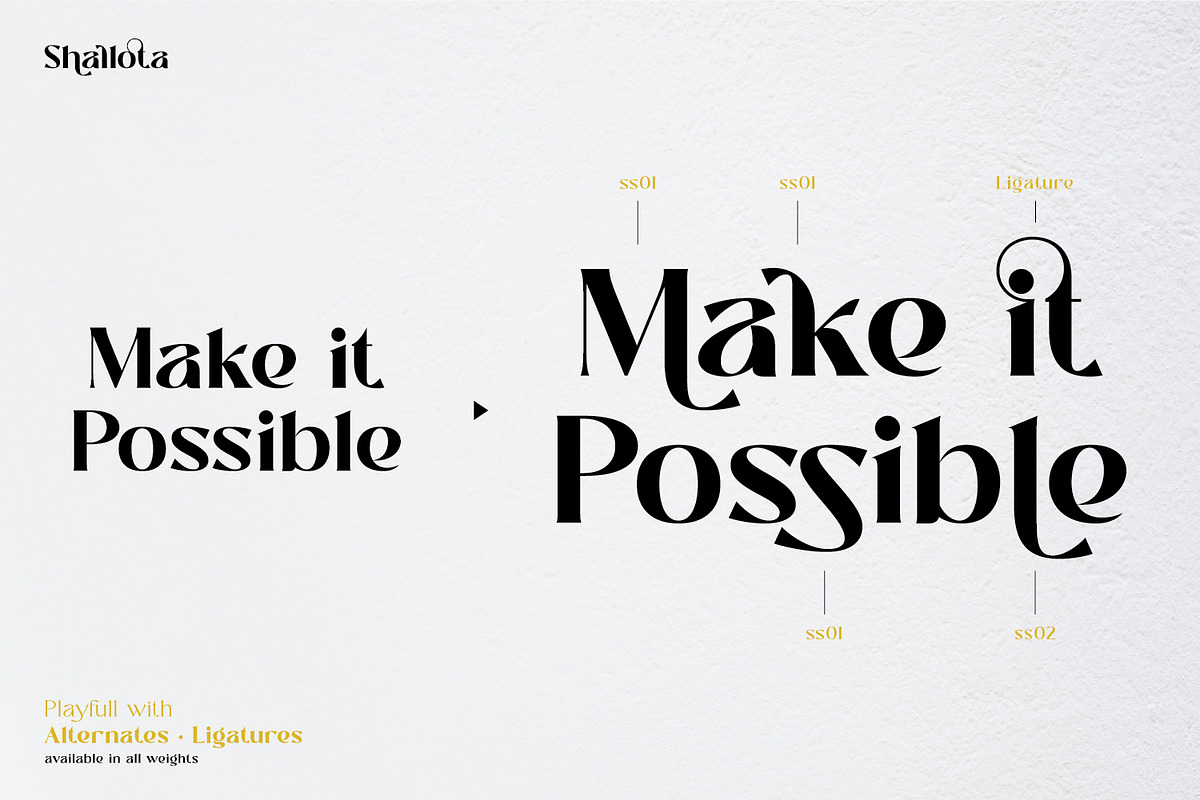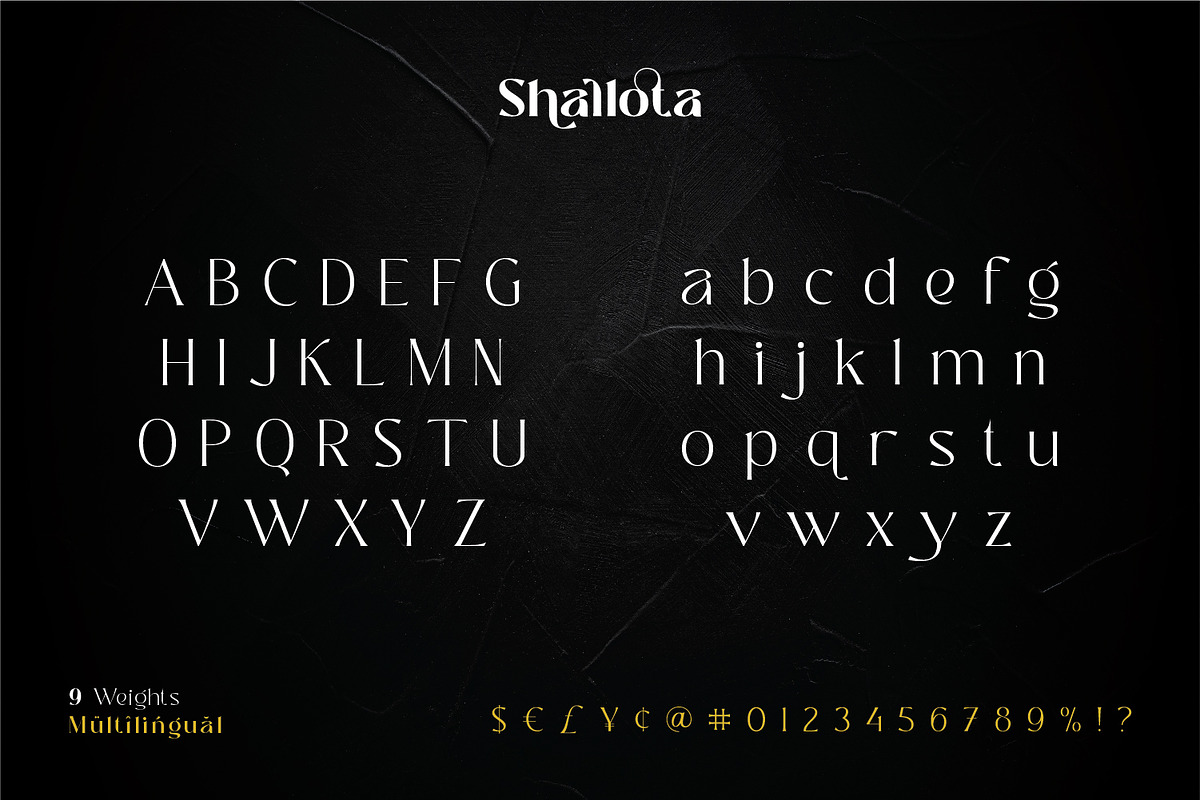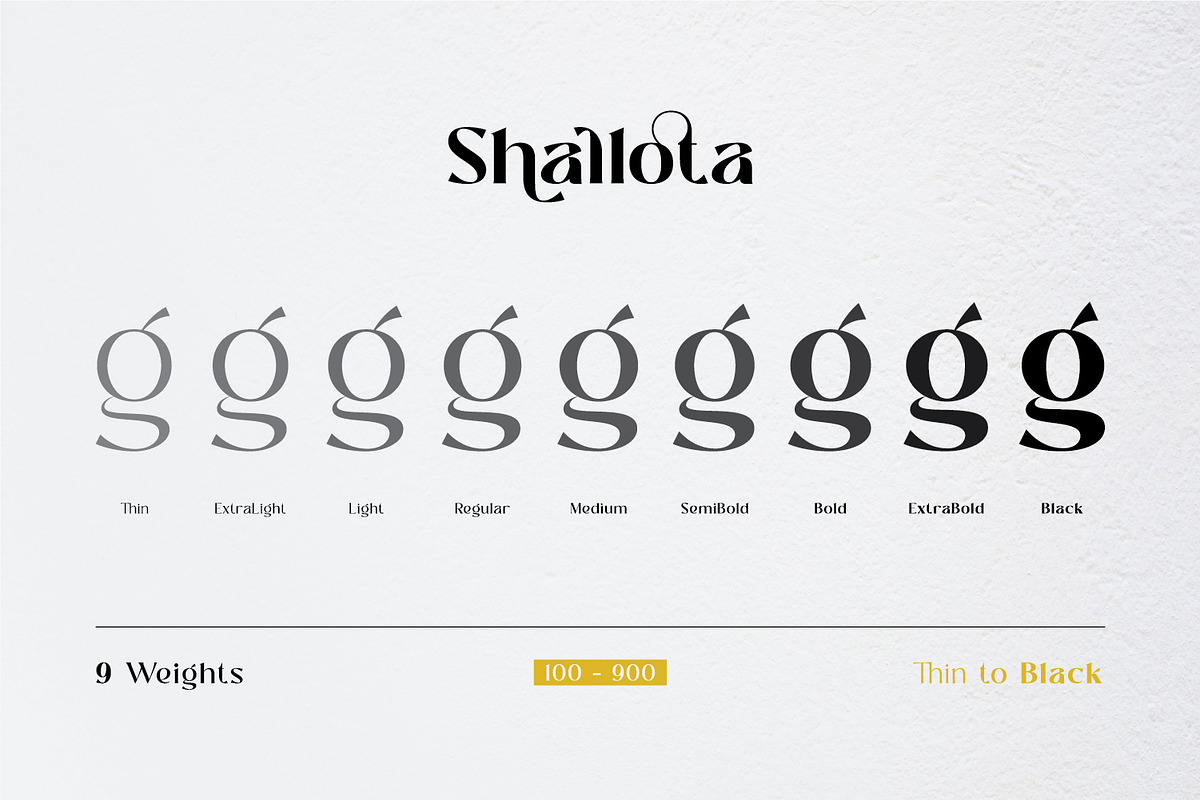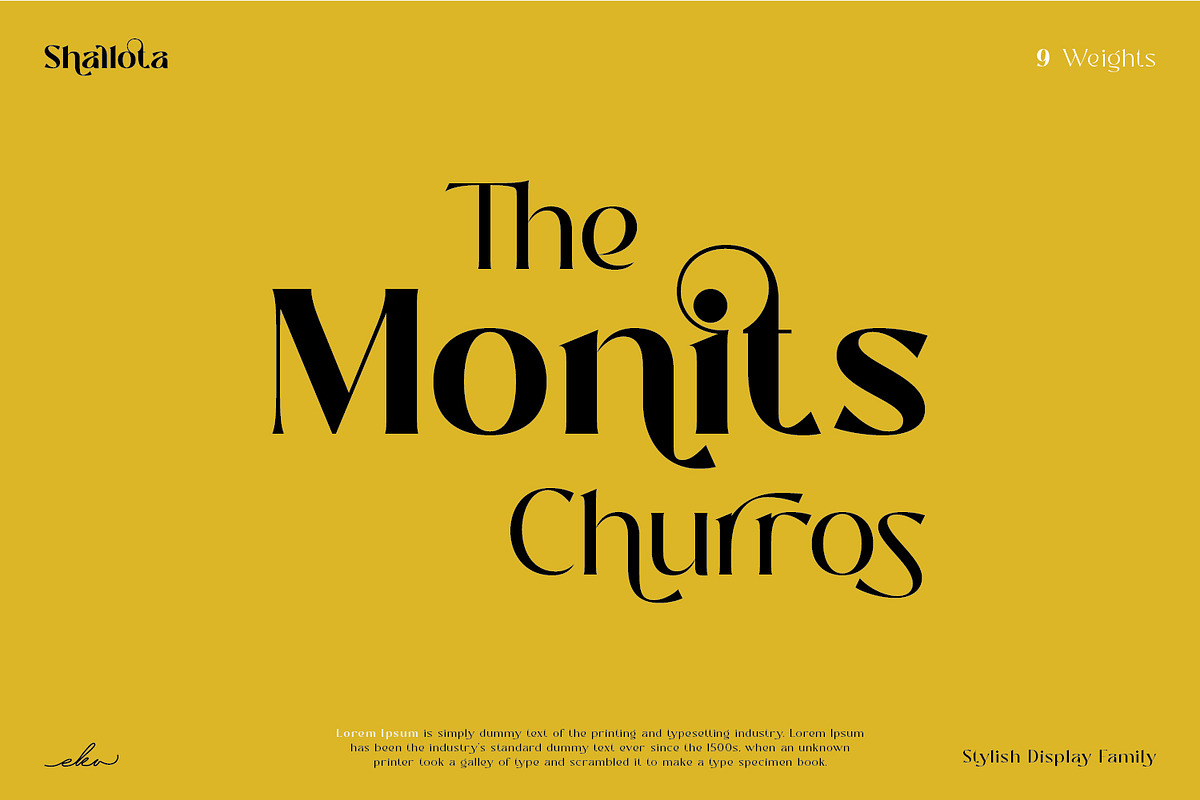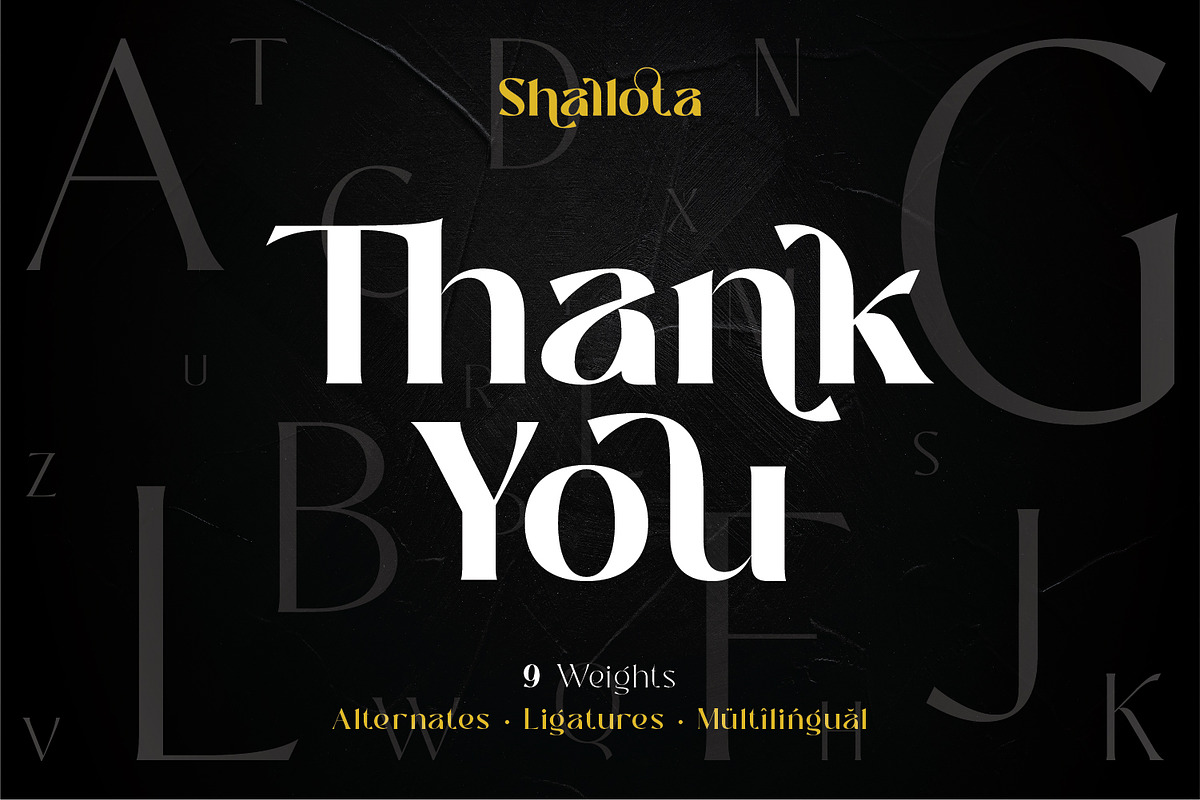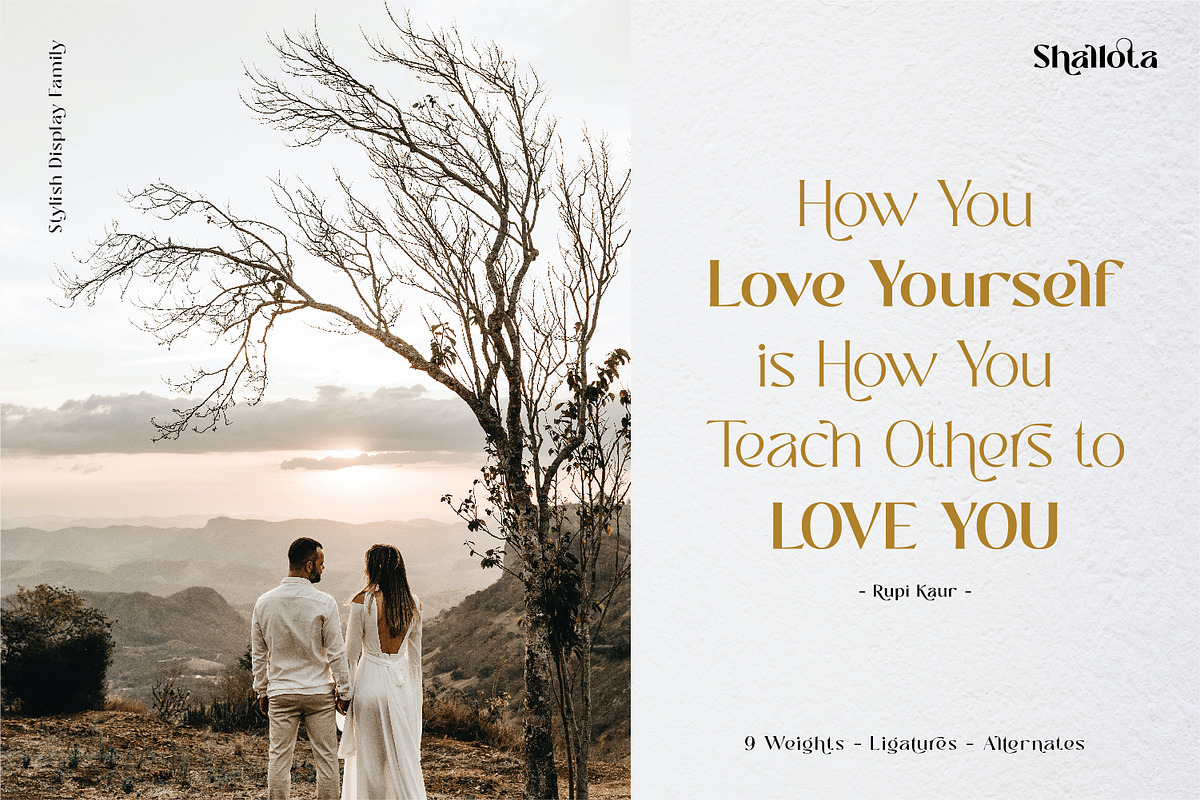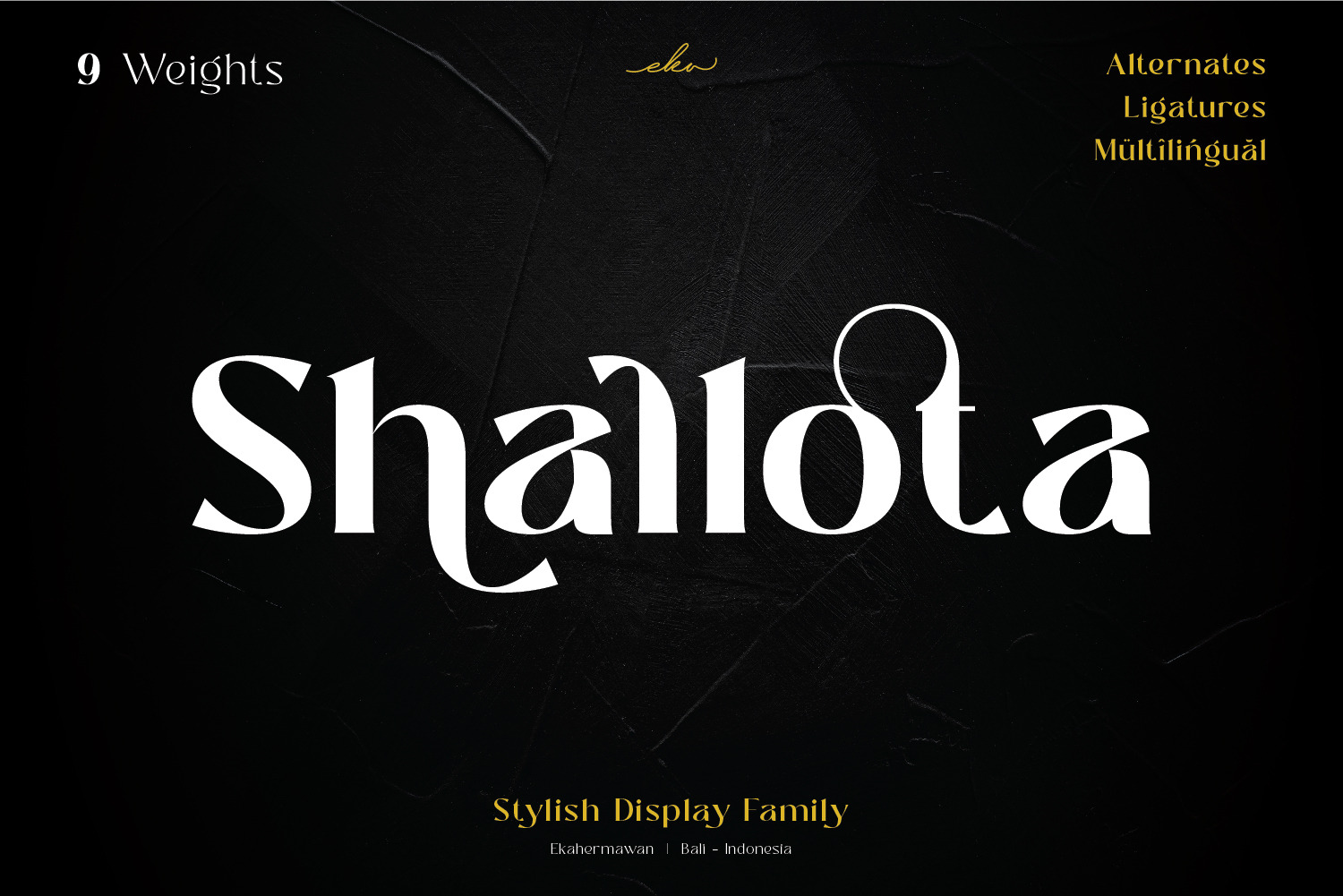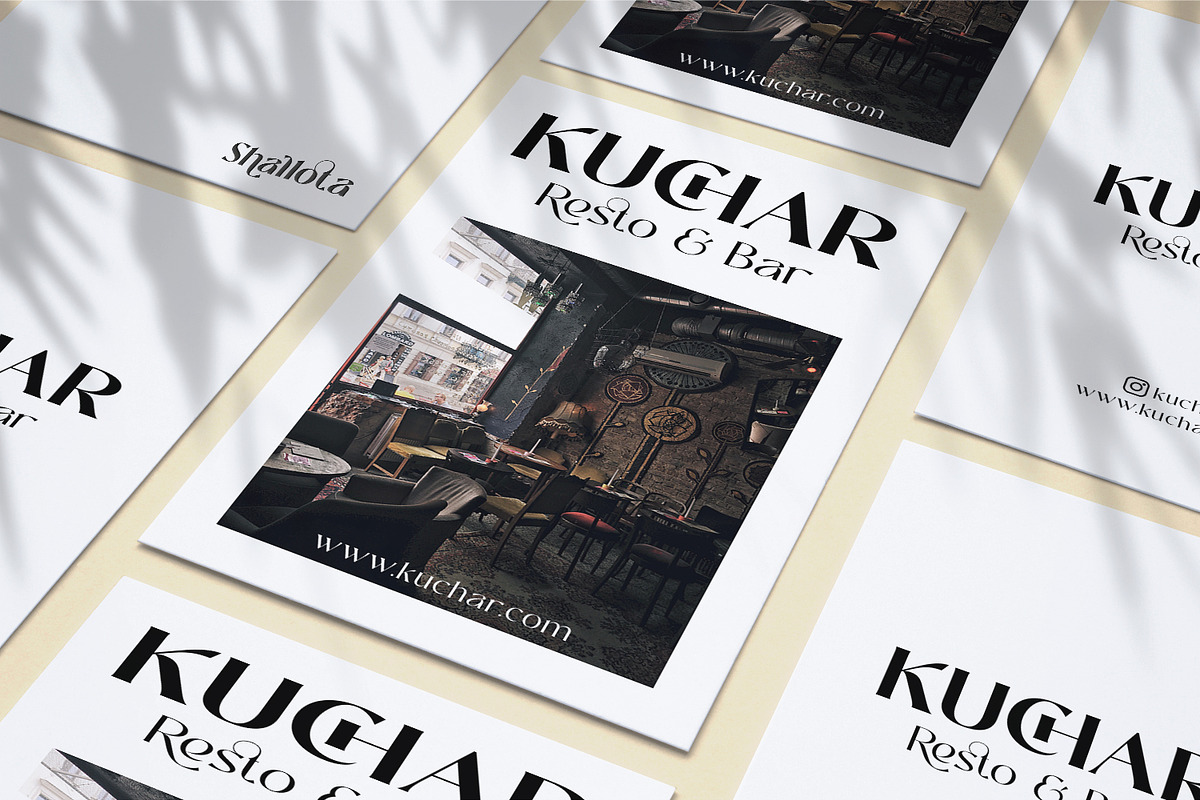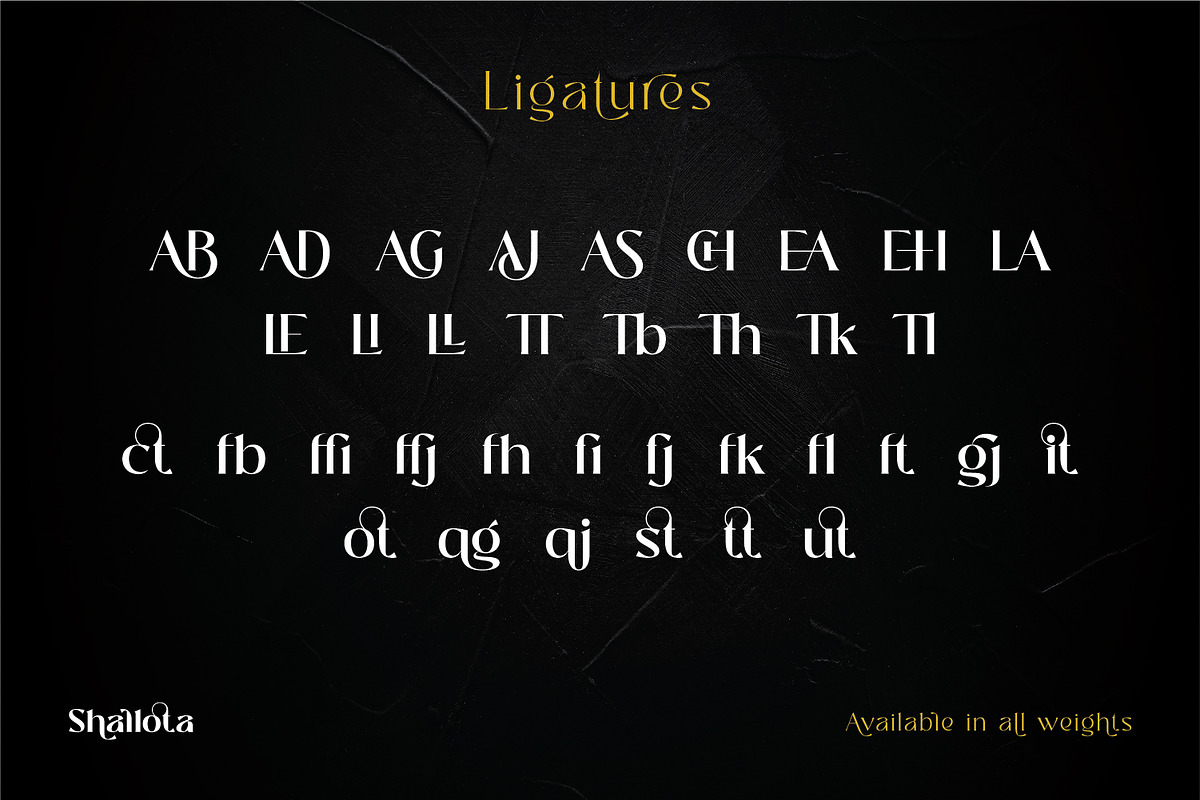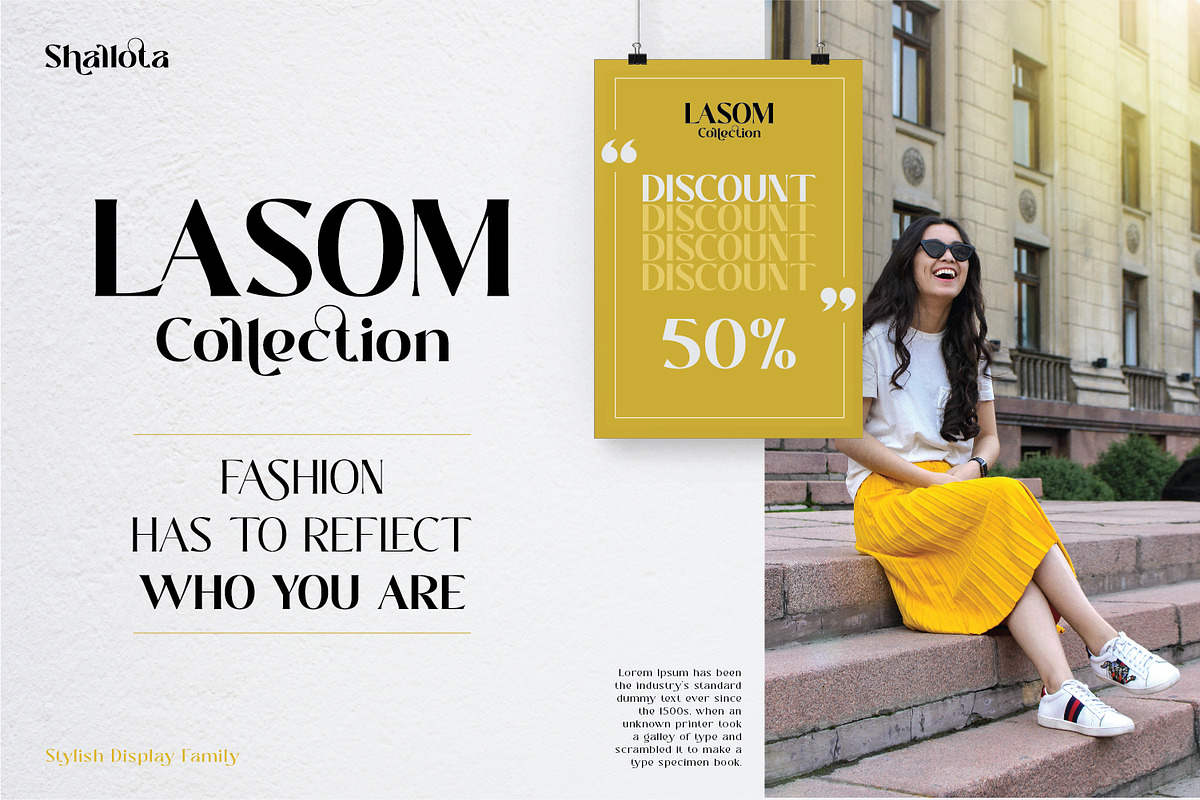
Shallota - Stylish Display Font
Shallota is stylish designed font for any display use with 9 weights from Thin to Black. Shallota also includes a bunch of alternate characters (PUA Encoded) and ligatures to give you a wide range for create an unique typographic design results. Shallota is versatile font for many different projects such as logo, branding, poster, magazines, labels, merchandise, invitation, presentation, advertising, quotes and so much more!
- OpenType support
- Playfull to use (with ligatures and alternates options)